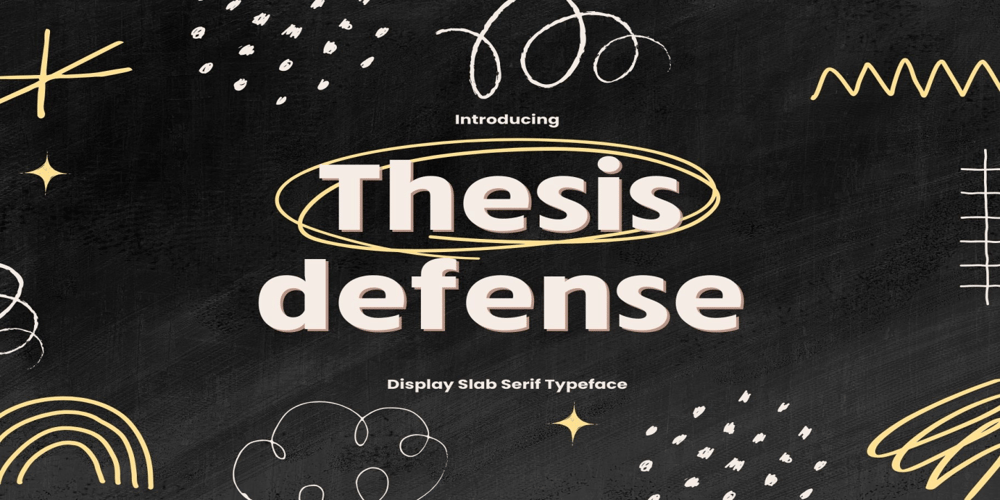
Thesis Defense Font Family was designed by Samuel Casal and published by Adita Fonts. Thesis Defense contains 1 styles and family package options. Thesis Defense is a happy handwritten font that will bring your design into a happy and fun mood. This font is perfect for branding, packaging, logotype, headline, wedding invitation, etc.This font is PUA encoded which means you can access all of the amazing glyphs and ligatures with ease!